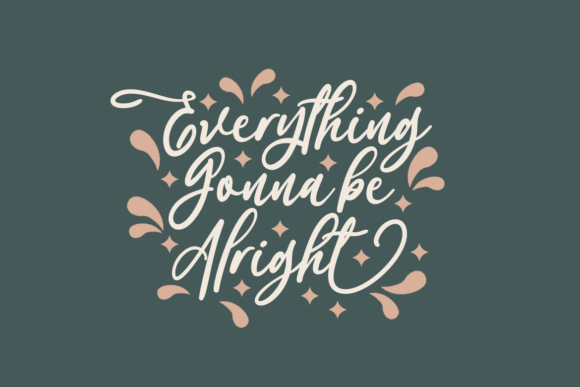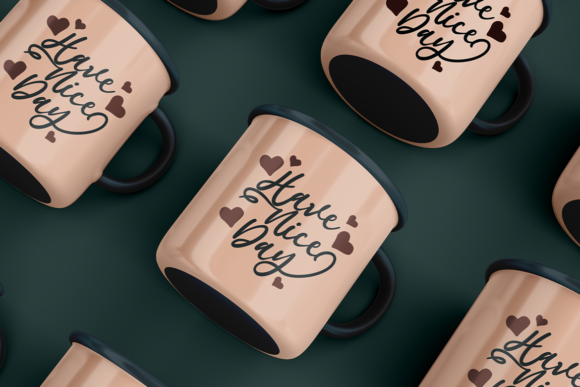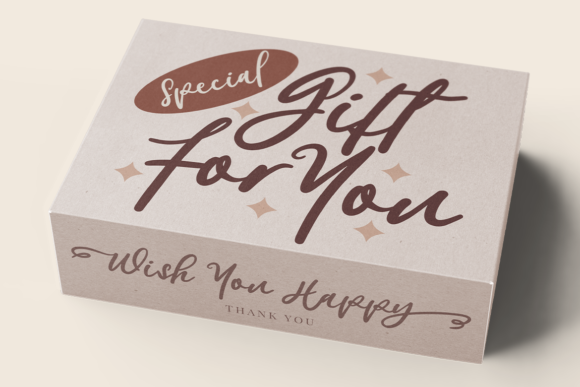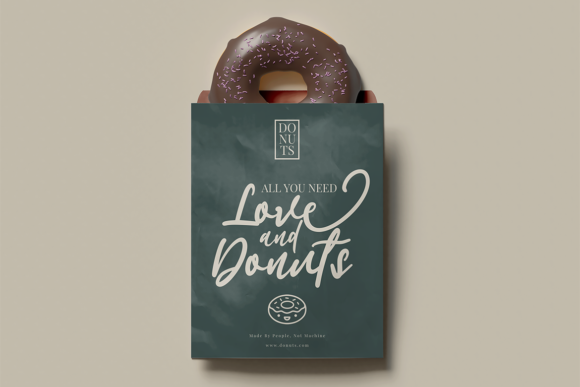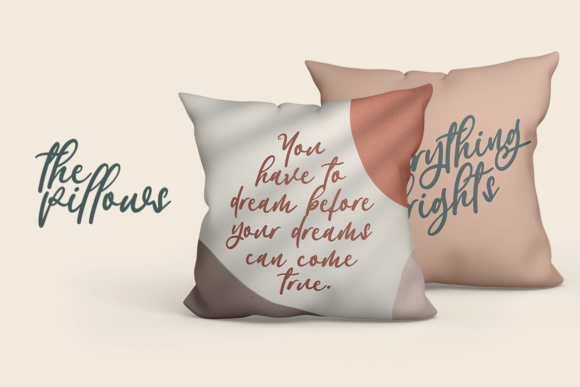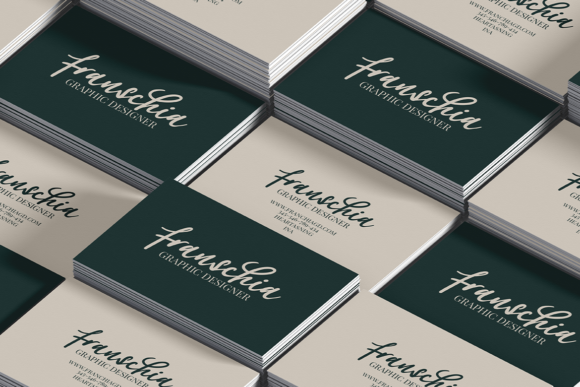
Introduction to Franschia Belanie Font
Have you ever found yourself scribbling away in a notebook, trying to capture the perfect handwritten phrase to match the mood of a project? This is where the magic of a high-quality font like Franschia Belanie Font comes in. As a designer, you’re constantly on the lookout for that special something to elevate your creative project, and this enchanting handwritten font is sure to deliver.
With its wide range of applications, from greeting cards to headlines, Franschia Belanie Font is a valuable design resource that’s sure to impress. Plus, with its PUA encoding, accessing all glyphs and swashes is a breeze, giving you the freedom to get creative without any hassle. Whether you’re working on a design project with a transparent background or simply looking for a unique touch, Franschia Belanie Font is the perfect choice.
Key Features of Franschia Belanie Font
- High-quality font suitable for creative projects, with a modern and elegant design.
- Comes with a transparent background, making it easy to overlay on various backgrounds.
- Unique characteristics include a clean and minimalist aesthetic, making it perfect for use in logos, branding, and typography-based designs.
Honest Review: Franschia Belanie Font
As a designer, I’m always on the lookout for high-quality fonts that can elevate my creative projects. Recently, I had the chance to try out the Franschia Belanie Font, and I must say it’s a great addition to my design resource library.
What works well: ✨ The Franschia Belanie Font is a beautiful, elegant script font that’s perfect for adding a touch of sophistication to your designs. It’s also incredibly versatile, making it suitable for a wide range of creative projects, from wedding invitations to food labels. The font is available for free download, making it an excellent choice for designers on a budget.
What’s more, the font has a transparent background, which makes it easy to combine with other design elements without worrying about awkward edges or clutter.
However, I did encounter a few limitations: ⚠️ The font could benefit from more character sets, especially for languages that use non-Latin scripts. Additionally, some users may find the font’s style a bit too ornate for certain designs.
Overall, I’m impressed with the Franschia Belanie Font, and I think it’s a great resource for designers who are looking for a high-quality, creative font for their projects.
- Beautiful, elegant script font
- Highly versatile
- May require additional character sets for certain languages
- Style may be too ornate for some designs
How to Use Franschia Belanie Font
The Franschia Belanie Font is a high-quality design resource ideal for creative projects requiring a unique touch. This free download is perfect for designers looking to add a distinctive flair to their work.
The Franschia Belanie Font is suitable for a variety of creative projects, including logos, brochures, and social media graphics, especially when requiring a transparent background.
To get the most out of Franschia Belanie Font, experiment with different font sizes, colors, and combinations to achieve the desired look and feel.
Alternatives to Franschia Belanie Font
Great Vibes Font is a high-quality, elegant script font suitable for creative projects that require a touch of sophistication. It features a transparent background, making it ideal for designing logos, invitations, and other design elements. Great Vibes Font is a free download, offering designers a reliable alternative to Franschia Belanie Font. It excels in creating a sense of luxury and refinement, perfect for high-end branding and advertising projects.
When to use: Luxury branding, advertising, and creative projects that require an elegant touch.
How it compares: Great Vibes Font offers a more refined and sophisticated look compared to Franschia Belanie Font, making it a better choice for high-end projects.
Q: Can I modify Franschia Belanie Font for my specific design needs?
While Franschia Belanie Font is a high-quality design resource, it’s not designed to be heavily modified. However, you can experiment with adjusting the font’s size, color, and other attributes to suit your specific design needs. Keep in mind that significant modifications may affect the font’s overall look and feel.